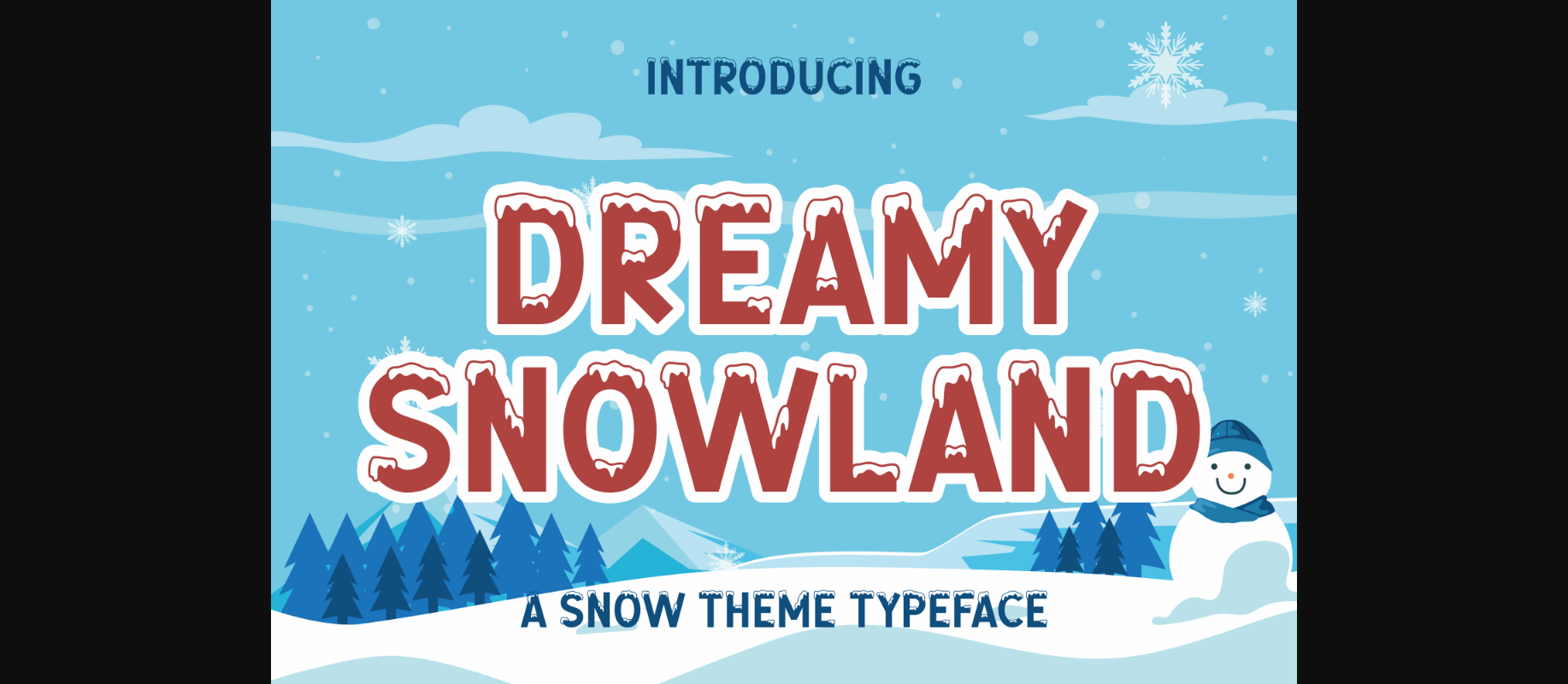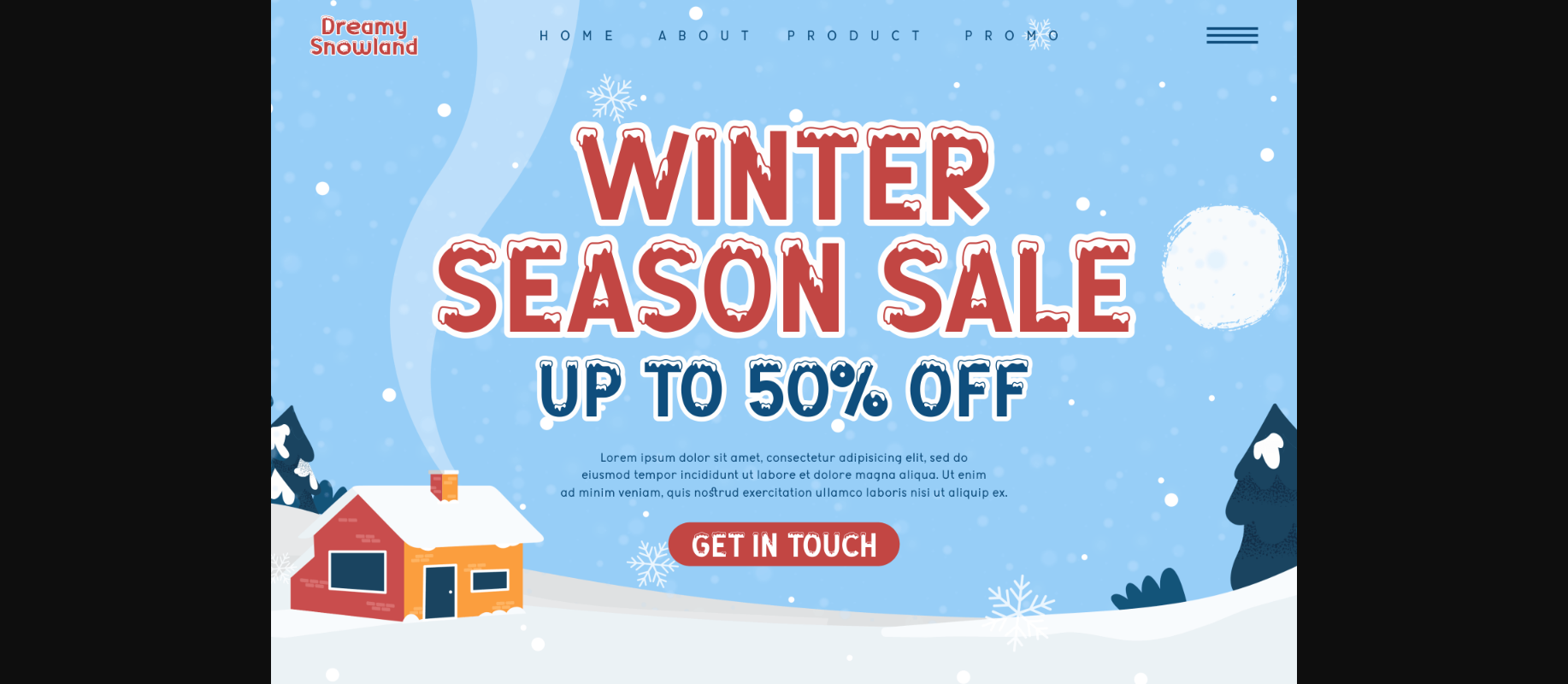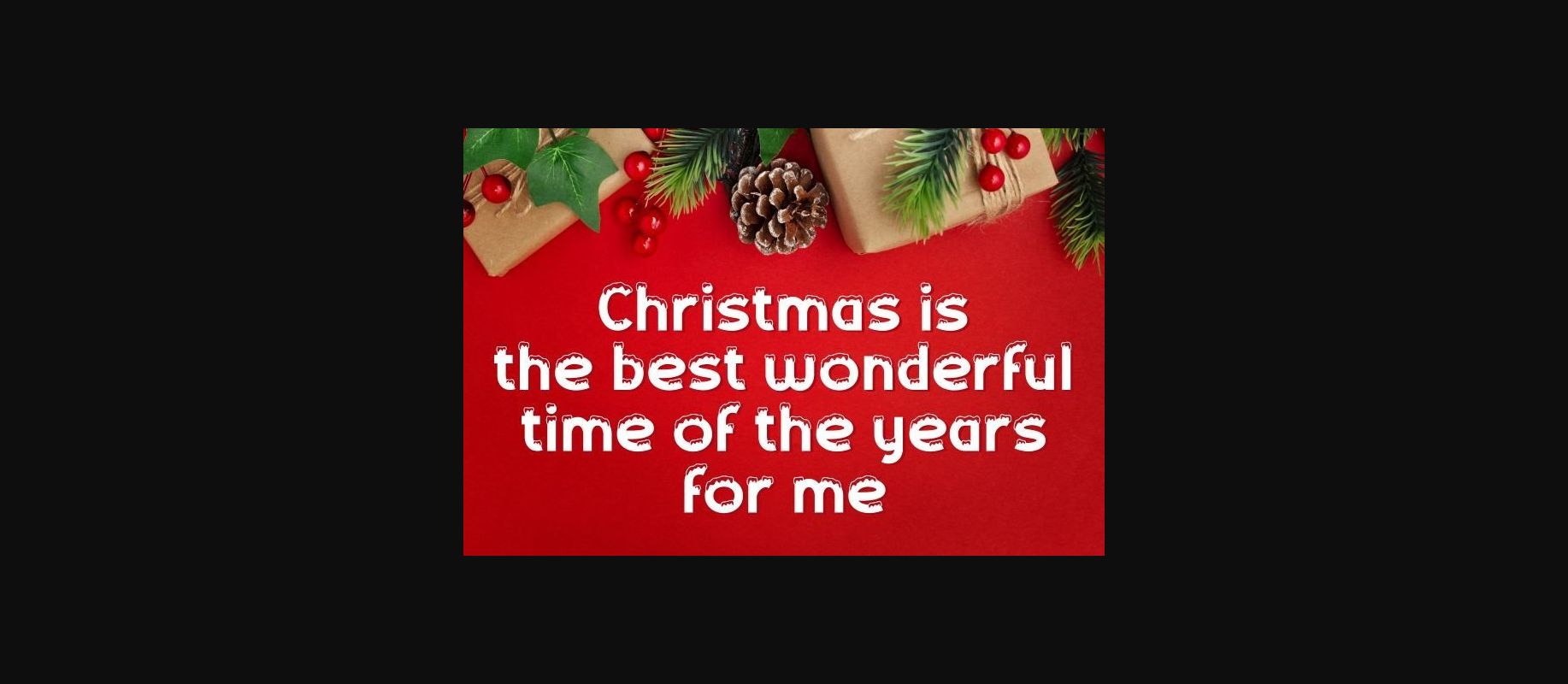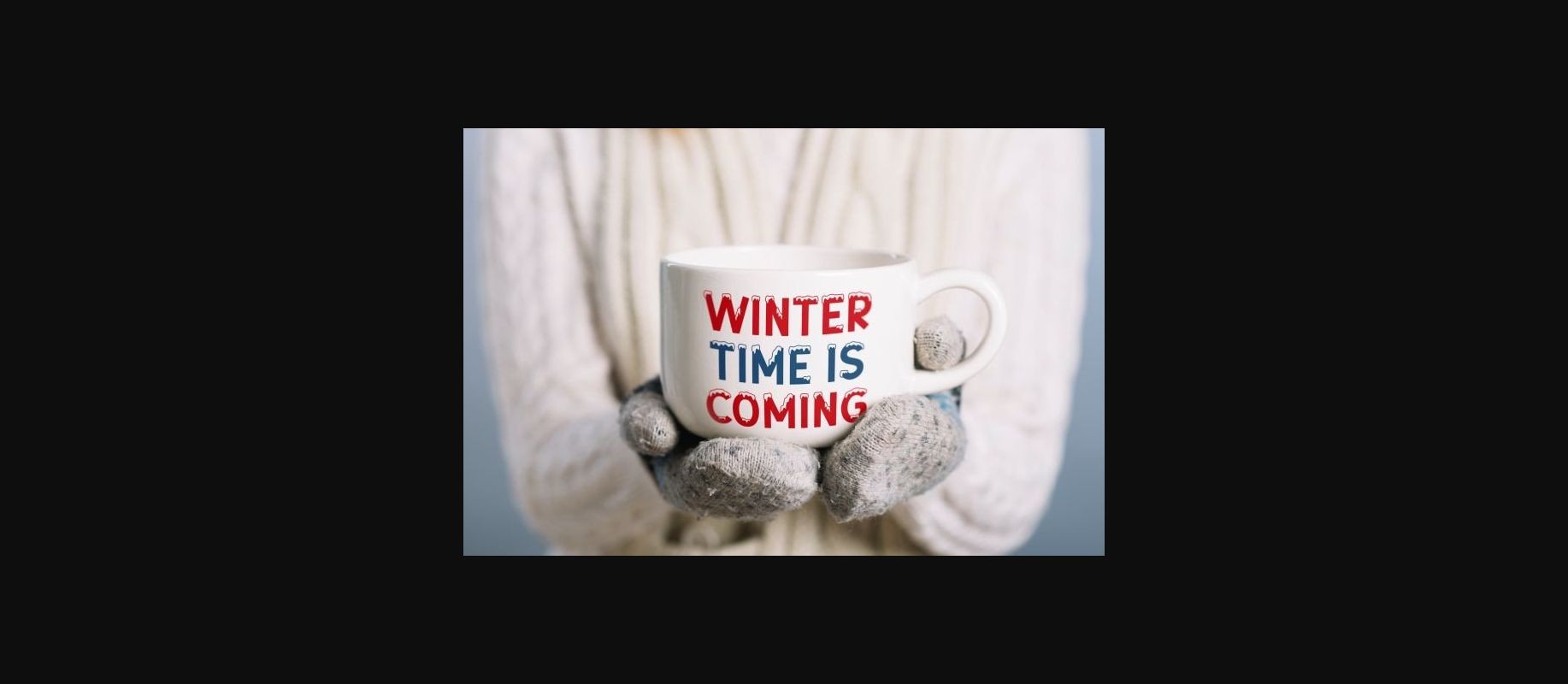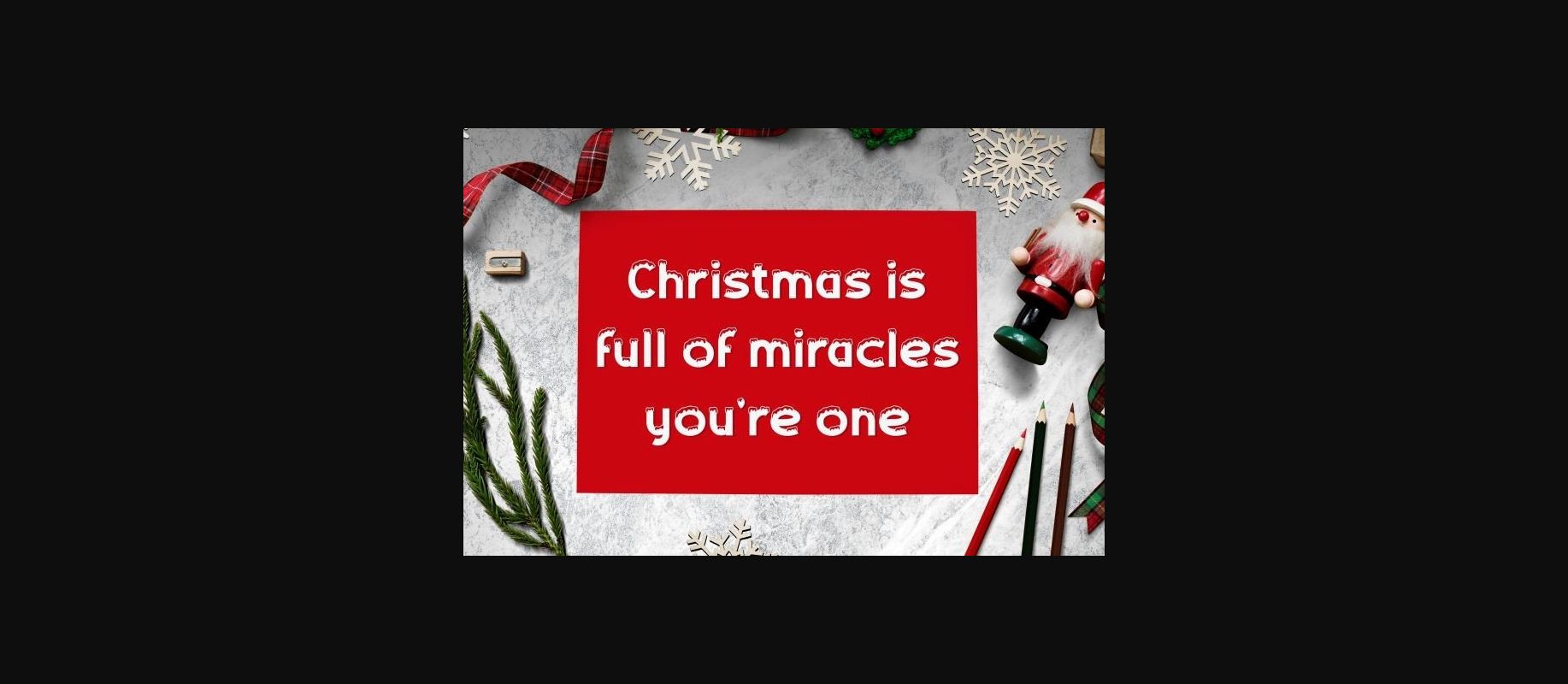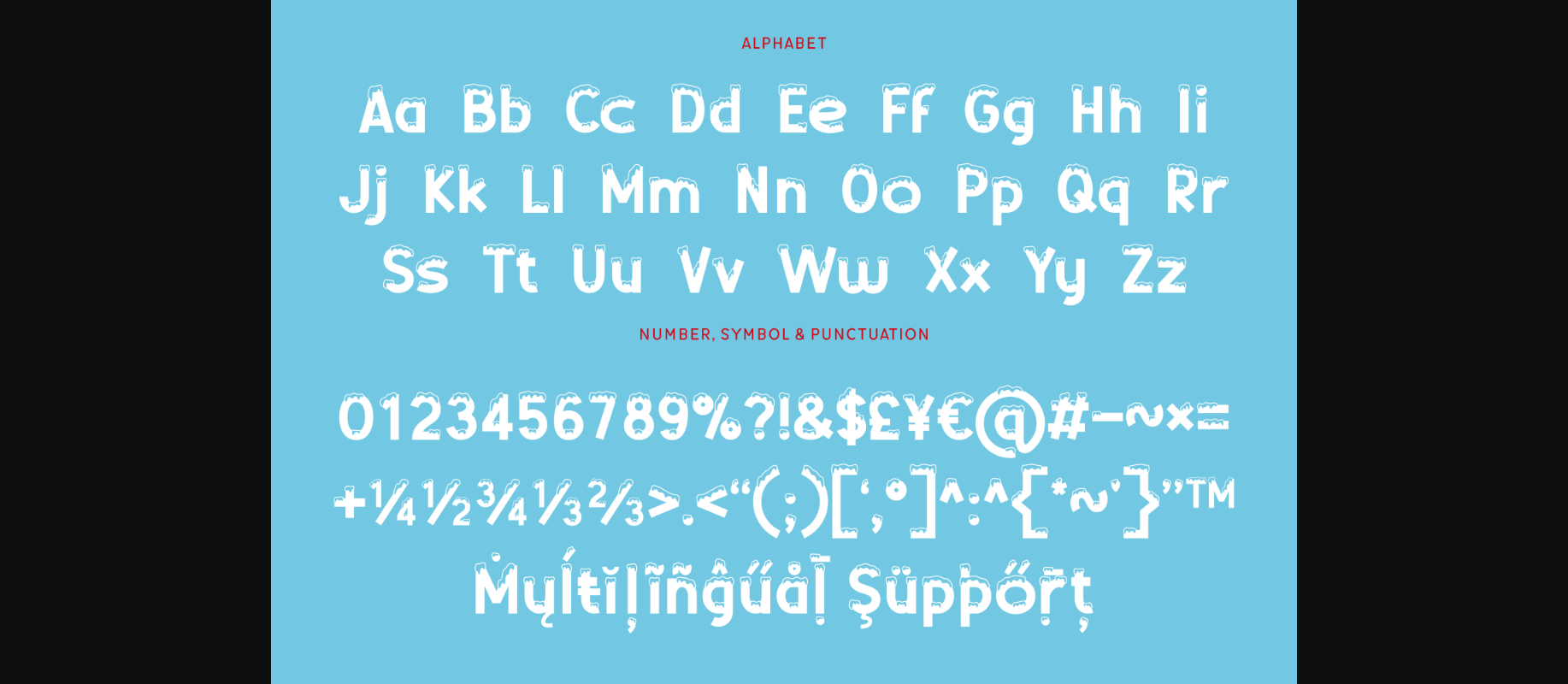
Dreamy Snowland Font
About Dreamy Snowland Font
Dreamy Snowland is a frosty decorative font that can bring all your winter projects to life! Use this gorgeous typeface to create fantastic winter storybooks, Christmas cards, or anything that needs a frosty, magical vibe!